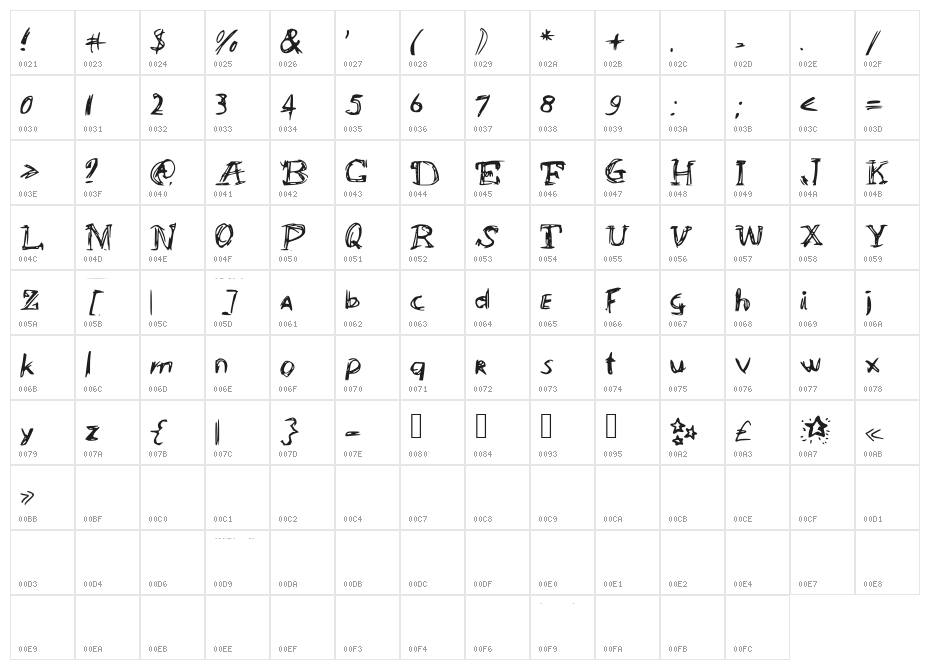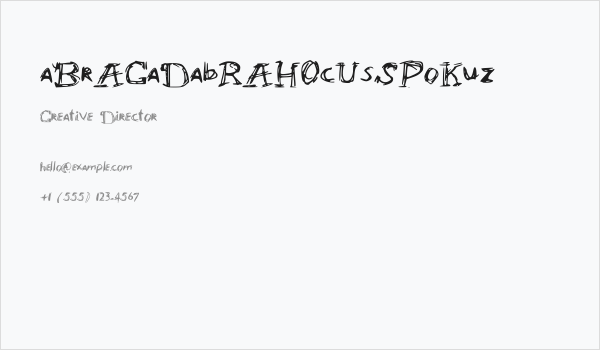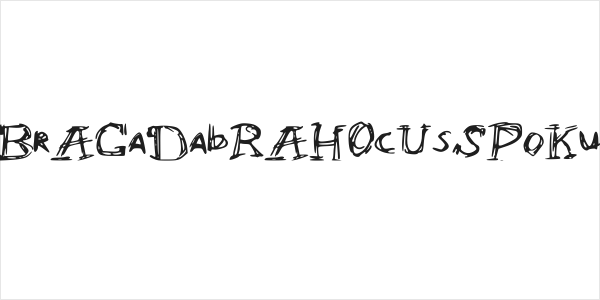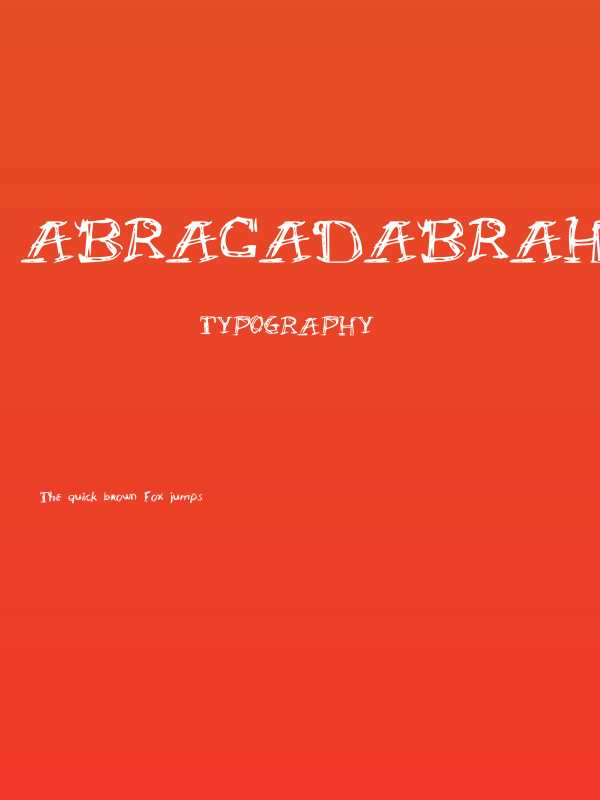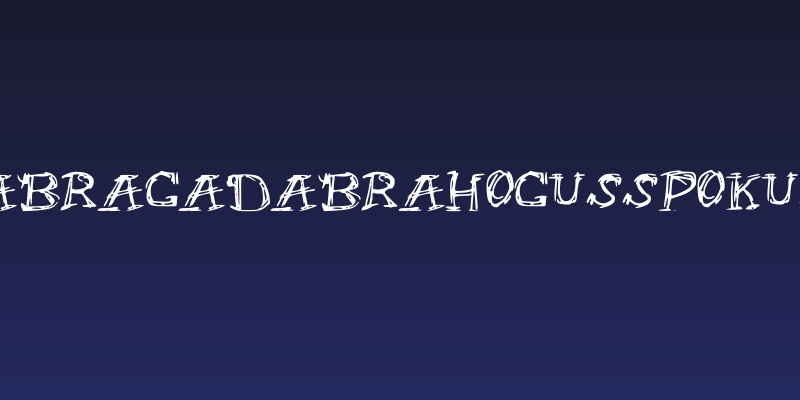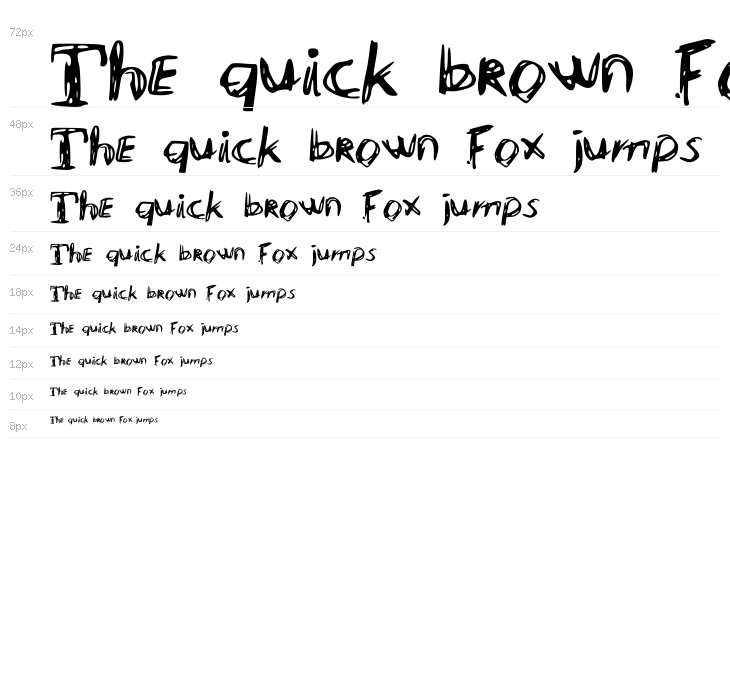
aBrACaDabRAHOcUsSPoKuz Font
aBrACaDabRAHOcUsSPoKuz Description
This font features a bold and expressive style with a hand-drawn appearance. The characters are irregular and dynamic, with a sense of movement and energy. The uppercase and lowercase letters have a playful, almost chaotic design, with varying stroke thicknesses that add to its unique character. The numbers and special characters follow the same energetic style, making the font suitable for creative and unconventional projects. Its artistic flair makes it stand out, perfect for grabbing attention.
FancyFrenzy - Francy van Lierop
| Proposed Projects | Ideal for posters, album covers, graffiti art, and any project requiring a bold, artistic touch. |